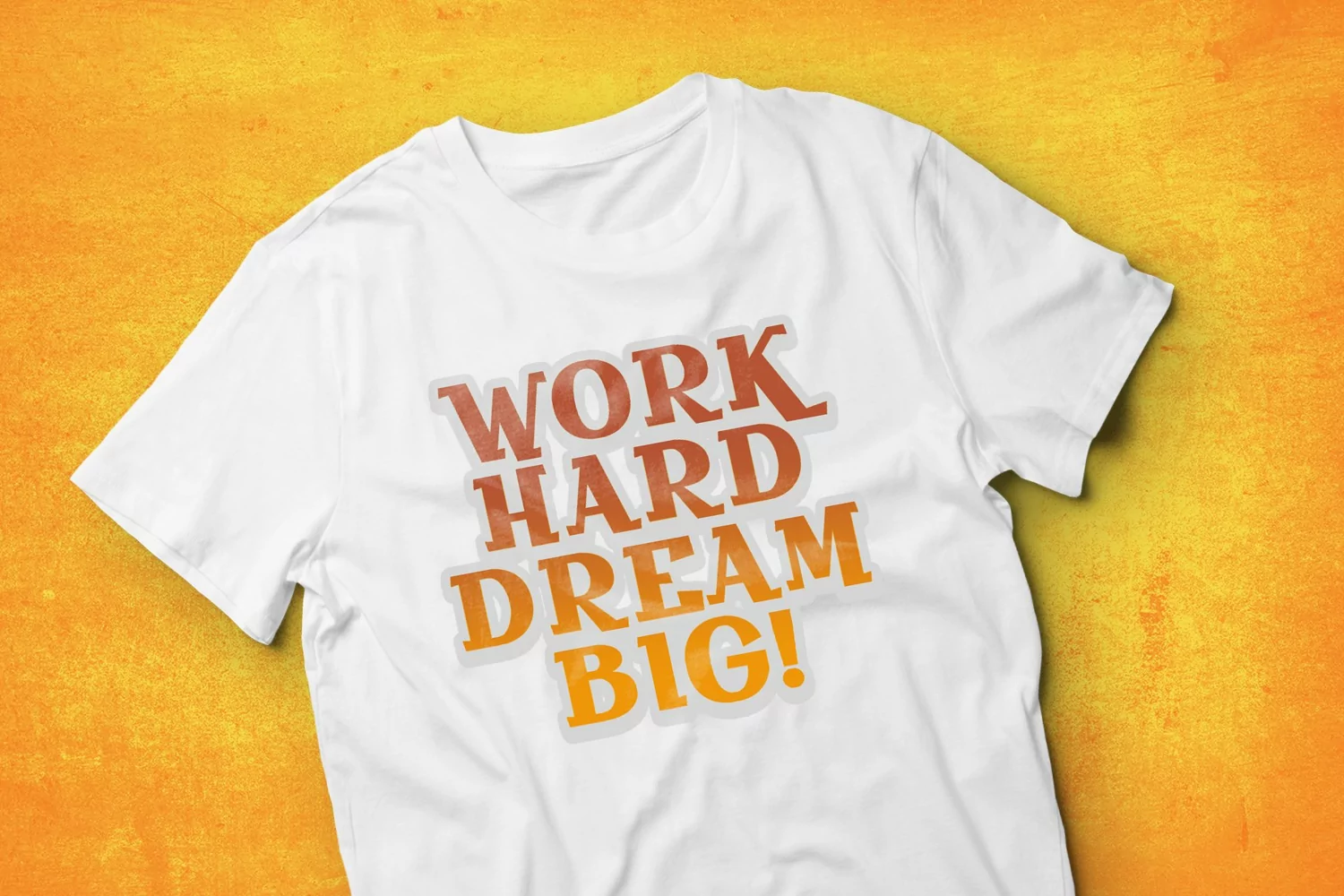
Baugulf is a new display typeface with sturdy serifs will keep pace with contemporary culture with an aesthetic agility that will never go out of style.